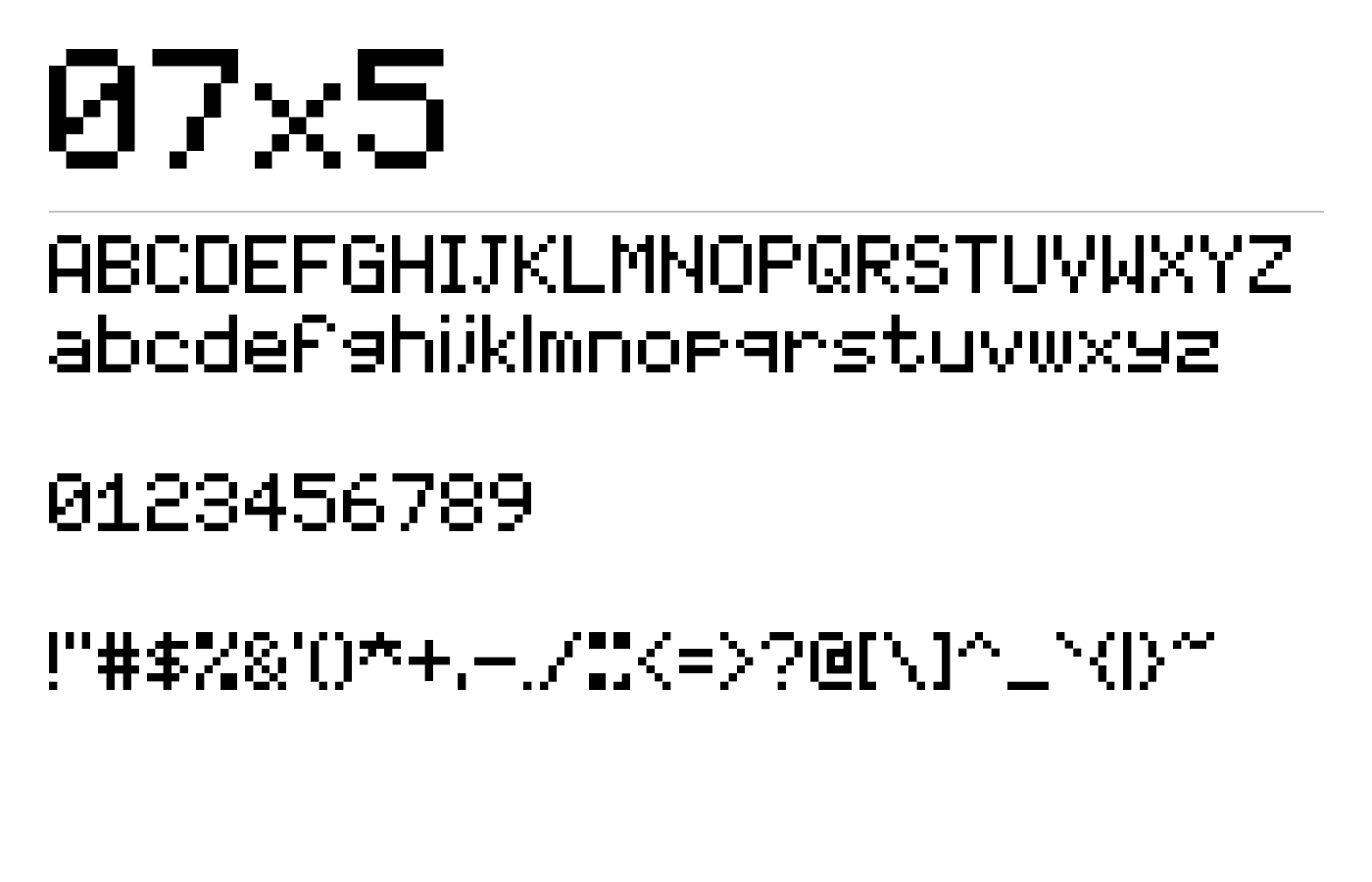
07x5 is a pixelated, monospaced sans serif font with a retro, 8-bit video game aesthetic. Its blocky, geometric letterforms have a uniform weight and condensed width, making it ideal for digital or tech-inspired designs that require a nostalgic yet readable style. This font works well for pixel art, game interfaces, and creative projects that want to evoke a vintage digital vibe.
| Font family | 07x5 Font |
| Release date | 2008-12-13 |
| Designer | jffry101 |